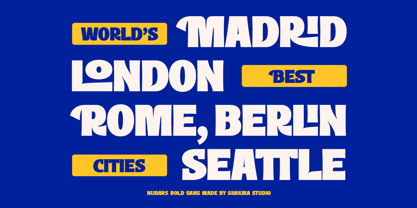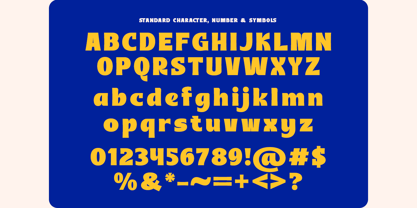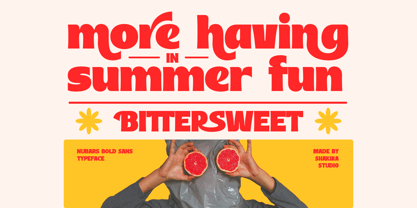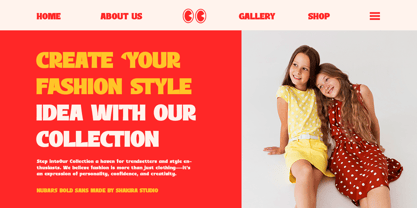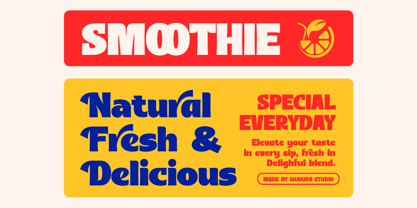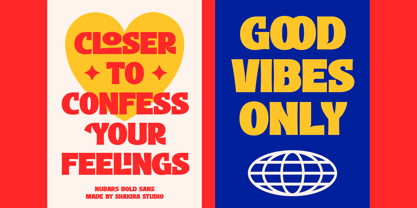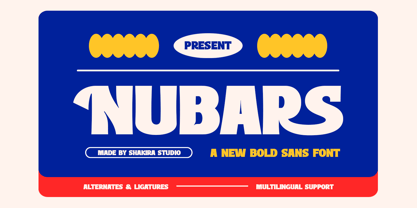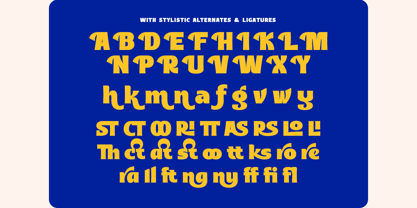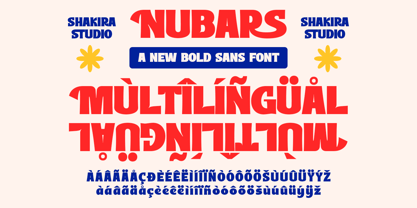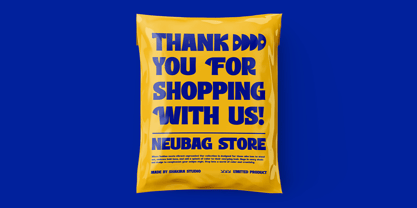
Nubars
by Shakira Studio
The Nubars Font Family was designed by Idhham Cholid Rikzano Yahya and published by Shakira Studio. Nubars contains 2 styles and family package options. More about this family
Nubars – Bold Sans Serif Font for Modern and Impactful Designs
Nubars is more than just a font—it’s a bold statement of modernity and strength, designed to make your designs stand out with confidence and impact. With its clean, geometric lines and stylish alternates, Nubars is the perfect choice for branding, logo design, packaging, posters, and more. Whether you’re crafting a powerful logo or designing eye-catching packaging, this font ensures your work radiates professionalism and contemporary flair.
Where Boldness Meets Modern Versatility
Nubars stands out with its strong, geometric design and stylish alternates, offering endless creative possibilities. Its versatility makes it ideal for projects that demand a bold, modern look, from corporate branding to creative packaging and posters. This font isn’t just a tool—it’s a statement of confidence and innovation.
Key Features
• Bold Sans Serif Design – Perfect for branding, logo design, packaging, and posters.
• Regular & Italic Versions – Versatile options for a variety of design needs.
• Stylish Alternates & Ligatures – Add a unique and creative touch to your designs.
• Multilingual Support – Compatible with over 20 languages, including English, French, German, Spanish, and more.
Elevate Your Designs with Nubars Nubars isn’t just a font—it’s a tool to transform your creative projects into bold, modern masterpieces. Whether you’re designing for print, digital, or branding, this font ensures your work stands out with confidence and impact.
Designers: Idhham Cholid Rikzano Yahya
Foundry: Shakira Studio